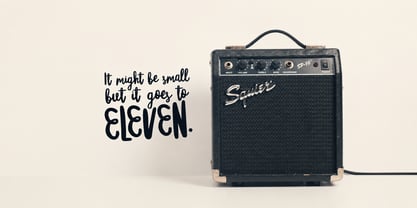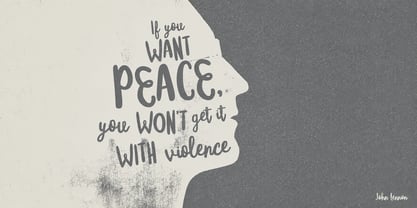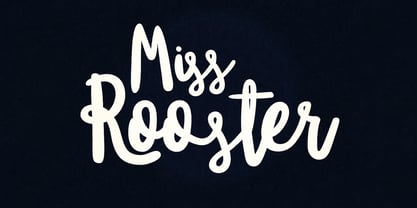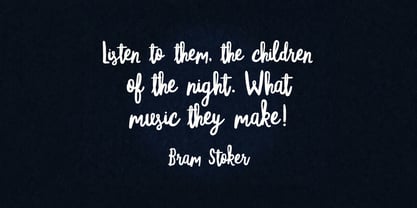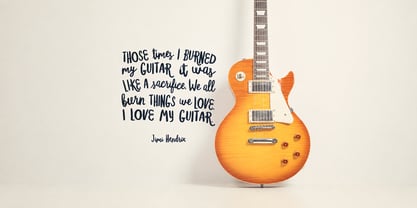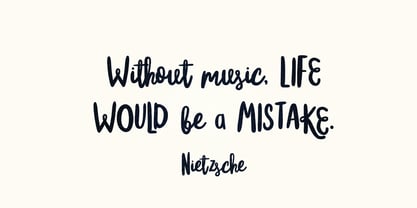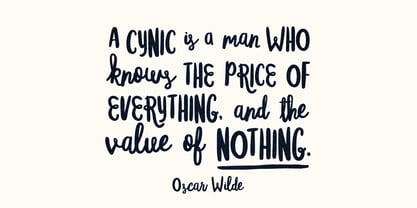
Miss Rooster New
by It's me Simon
The Miss Rooster New Font Family was designed by Simon Stratford and published by It's me Simon. Miss Rooster New contains 1 styles. More about this family
Despite what my moody mockups might suggest, Miss Rooster font is all about playful vibes. It's perfect for projects that need that personal, handmade touch. Think wedding invites, posters, or packaging – it plays well with different design styles.
It's got loads of ligatures to make sure those letters cosy up just right. Plus, a bunch of initial and terminal forms. So, you can fire up those OpenType features in your design software and tweak them to your heart's content.